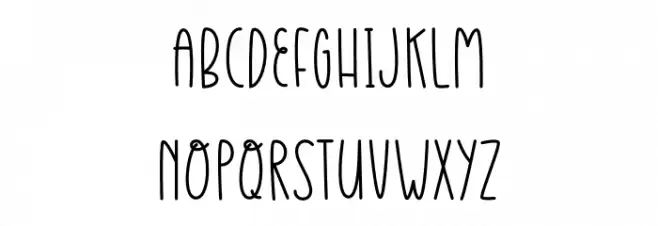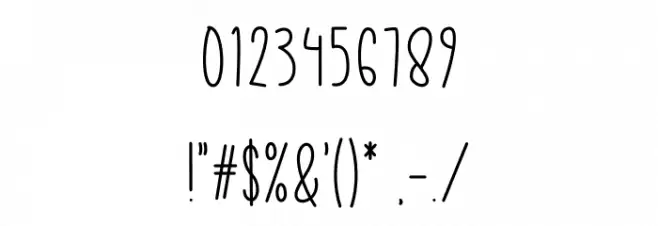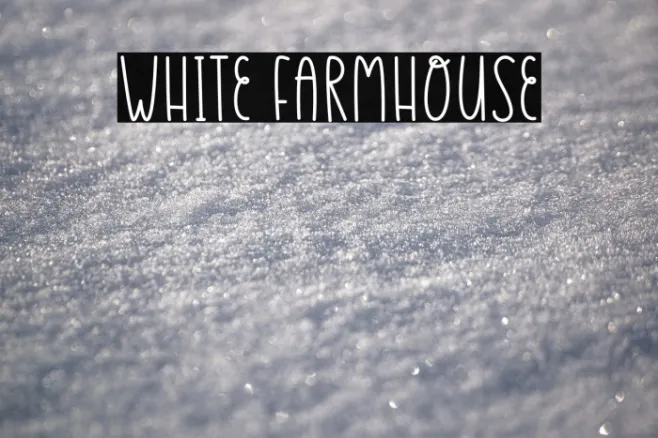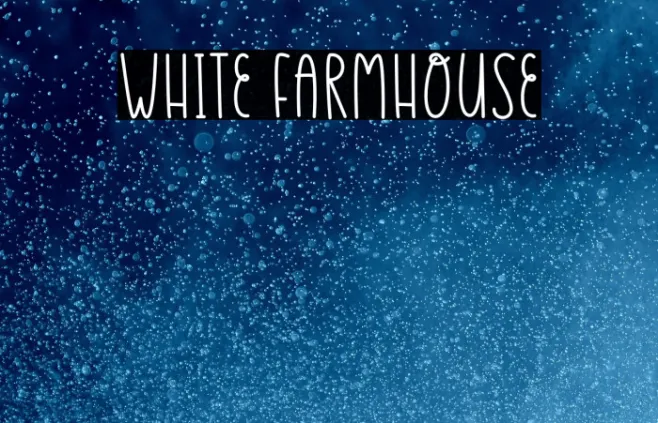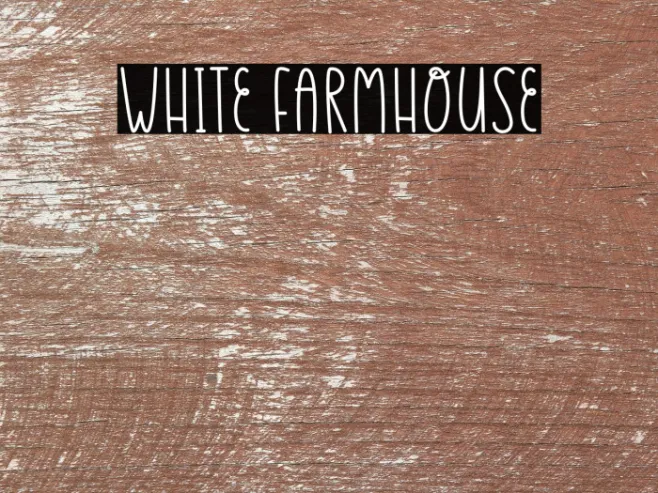
White Farmhouse
A playful, handwritten font with a casual and friendly appearance, featuring slightly irregular strokes and a whimsical style.
Playful handwritten font with a casual style.
- Proposed Projects: Greeting cards, invitations, casual branding.
- Overall Style: Casual, Whimsical
- Use Case: Headlines, Casual text, Invitations